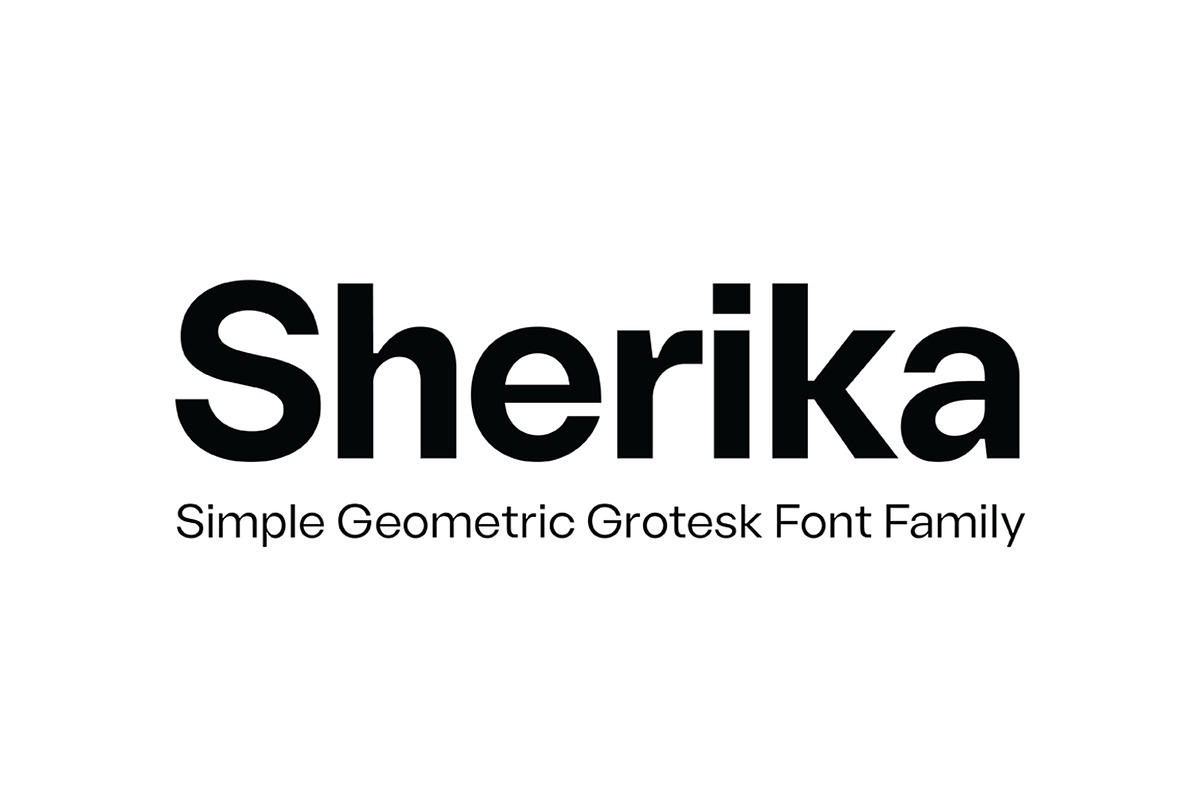
Sherika Font Family
Sherika Font Family brings a balanced structure and contemporary look, making it suitable for both digital and print design. Sherika is a cool and authentic sans serif font family. Seven weights plus matching italics. Simple geometry with nuance that adds warmth. t’s a perfect choice for branding, magazines, posters, advertising, packaging, headlines, logos, web, print etc.